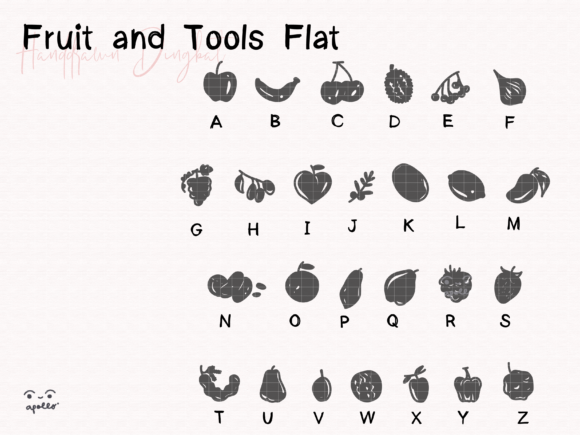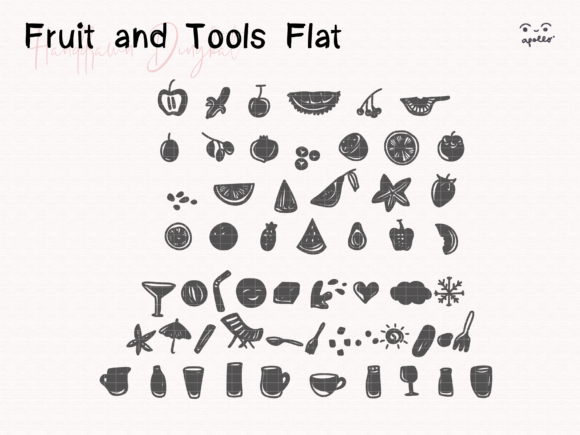
Fruit and Tools Font: A Fresh and Fun Addition to Your Design Toolbox
I’ll never forget the summer I spent working on a branding project for a new juice bar. I was determined to create a fun and playful vibe, but I was struggling to find the right font to match their fresh and fruity theme. That’s when I stumbled upon the Fruit and Tools Flat Dingbats font, and it was love at first sight! 🤩
This hand-drawn doodle of dingbats fonts created with fruit shapes and tools shapes is perfect for adding a touch of whimsy to your designs. In this article, I’ll share my honest review of the Fruit and Tools font, provide a step-by-step guide on how to use it on different platforms, and explore similar fonts you might enjoy.
- Unique and playful design that’s perfect for summer-themed projects ☀️
- Hand-drawn feel that’s both fun and fresh 🎨
- Versatile and can be used for a variety of design projects, from invitation embellishments to wall art and beverage logos 📚
- Easy to use and pairs well with a range of fonts and design styles 👫
Small Quirks and Limitations ⚠️
While I adore the Fruit and Tools font, there are a few things to keep in mind:
- Some characters may not be suitable for body text due to their decorative nature 📝
- Limited use on non-color fonts or certain design applications 📊
- May not be the best choice for very formal or professional designs 📊
Overall, the Fruit and Tools font is a great addition to any design toolbox, and with a little creativity, you can make it work for your project.
The Story Behind Fruit and Tools Font
The Fruit and Tools font was designed with the intention of capturing the fun and carefree spirit of summer. The designer, a creative and imaginative individual, wanted to create a font that would evoke feelings of joy and playfulness. With its unique combination of fruit and tool shapes, the Fruit and Tools font is sure to bring a smile to anyone’s face.
Q: What type of projects is the Fruit and Tools font best suited for?
A: The Fruit and Tools font is perfect for a variety of projects, including invitation embellishments, wall art, beverage logos, seamless patterns, and more.